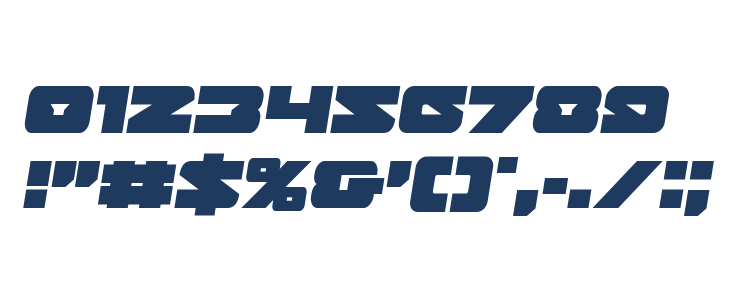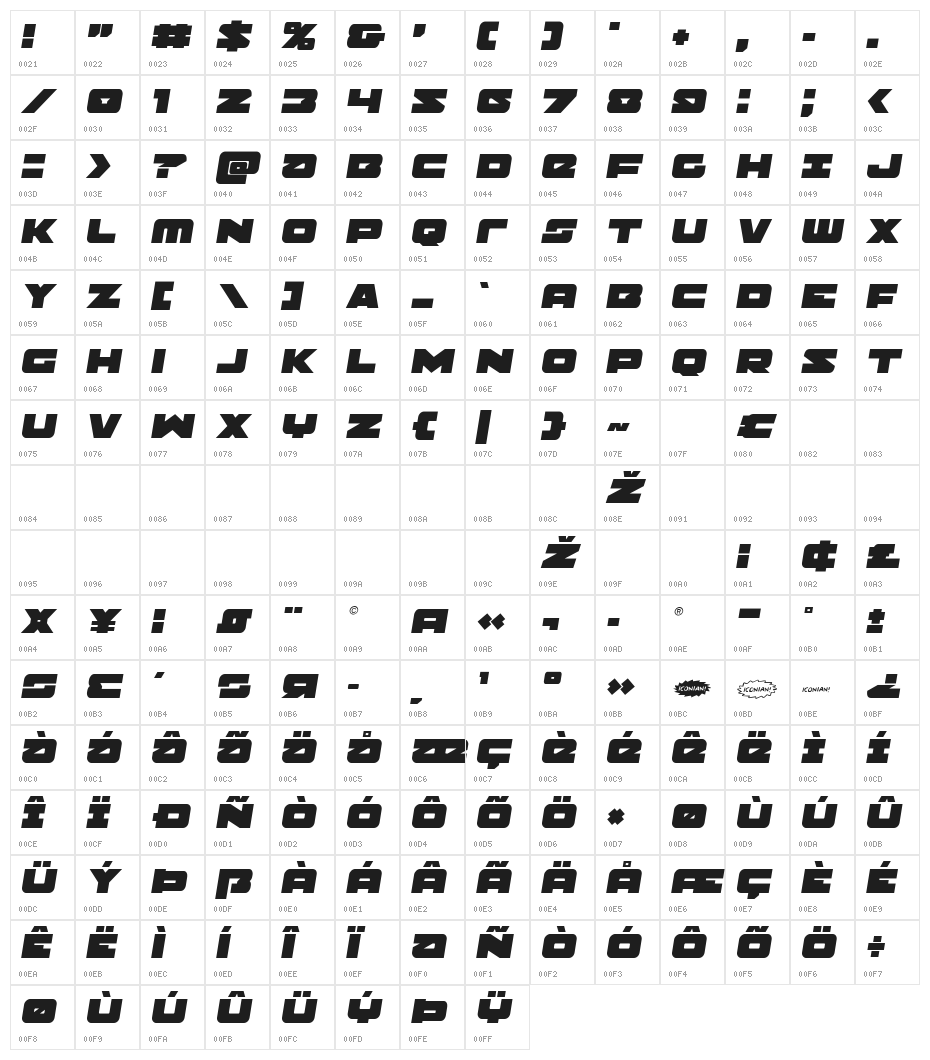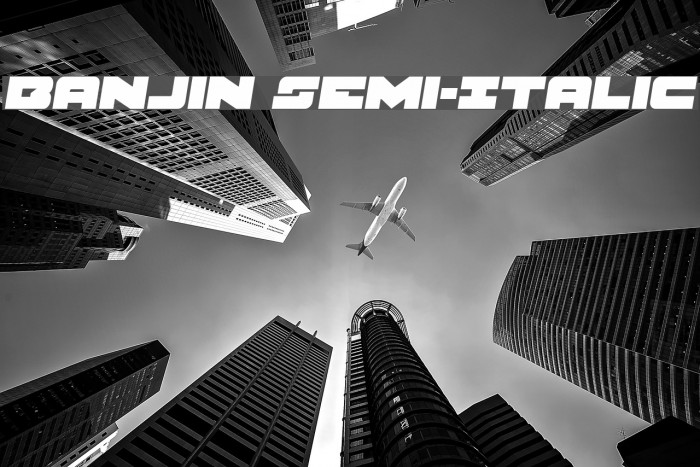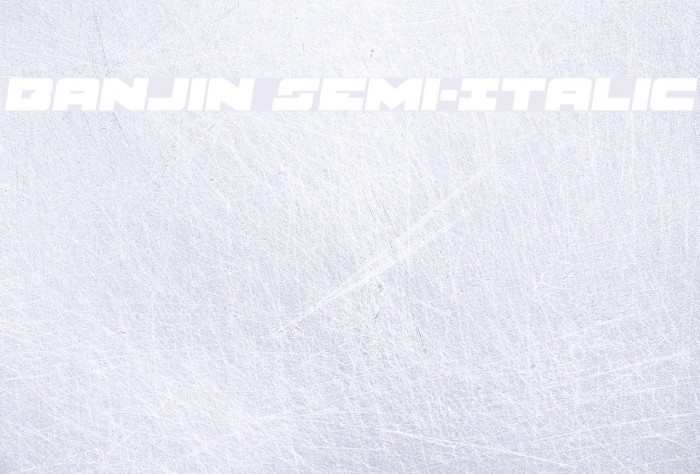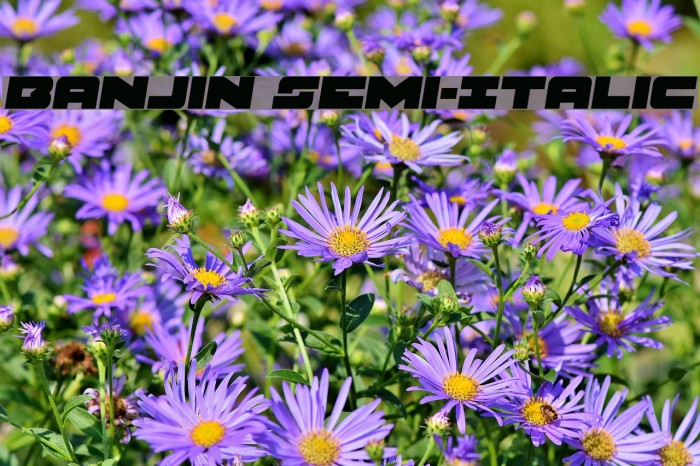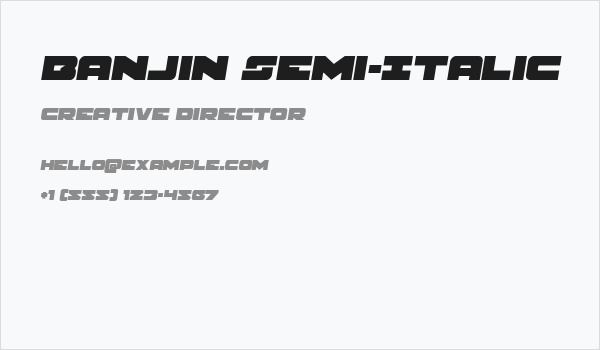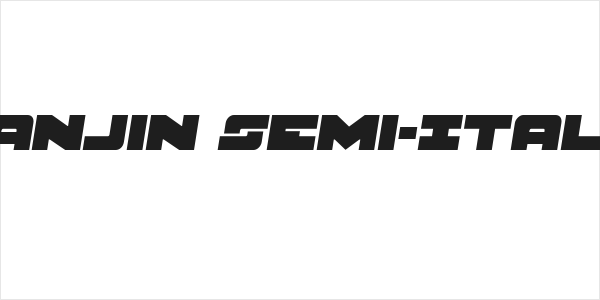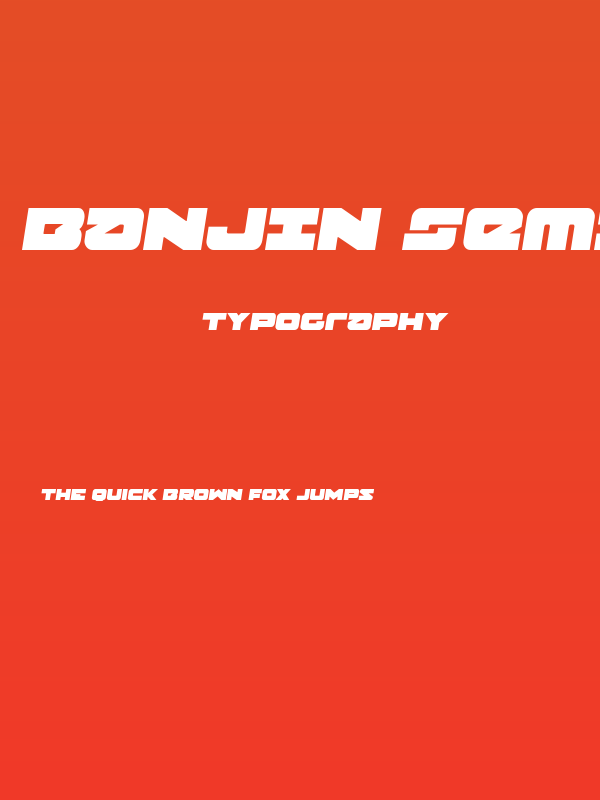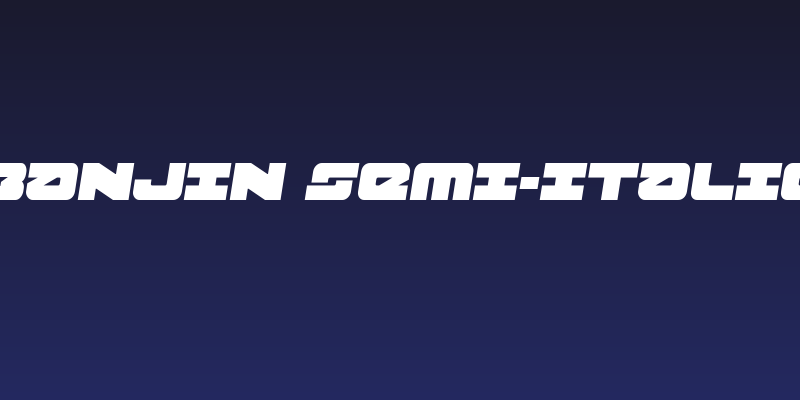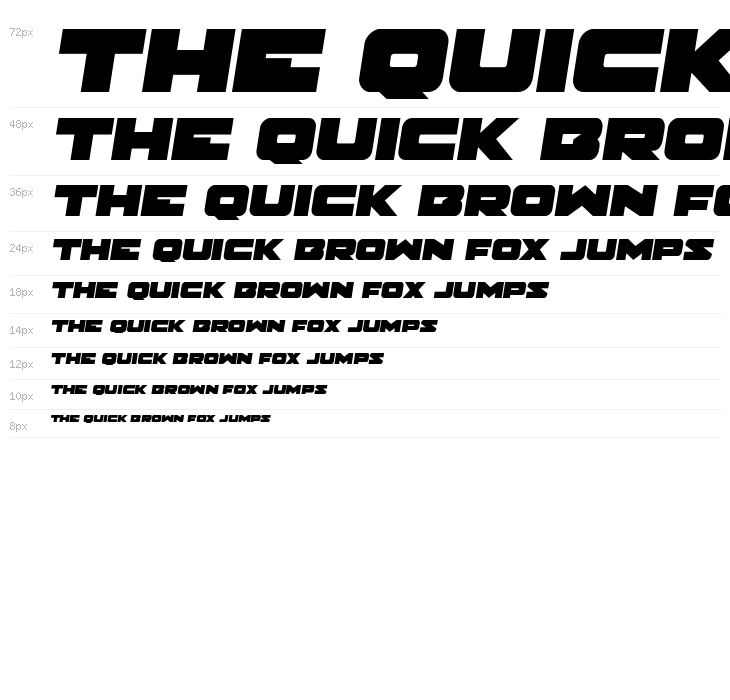
Banjin Semi-Italic Font
Banjin Semi-Italic Description
This font features a bold and dynamic design with a semi-italic slant, giving it a sense of motion and energy. The characters are wide and blocky, with sharp angles and a futuristic aesthetic. The uppercase and lowercase letters maintain a consistent style, emphasizing geometric shapes and strong lines. Numbers and special characters are designed to match the boldness and angularity of the alphabet, ensuring a cohesive look across all glyphs. This font is well-suited for projects that require a modern and impactful appearance.
Proposed ProjectsIdeal for branding, posters, video game graphics, and sci-fi themed projects.